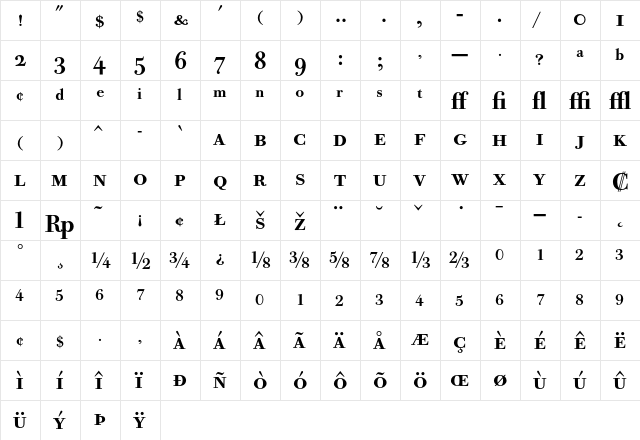
Bodoni Old Face BE Medium Expert
Design Context for Bodoni Old Face BE Typeface
Bodoni Old Face BE is a composed and adaptable typeface that performs quietly and consistently across a wide range of design contexts.